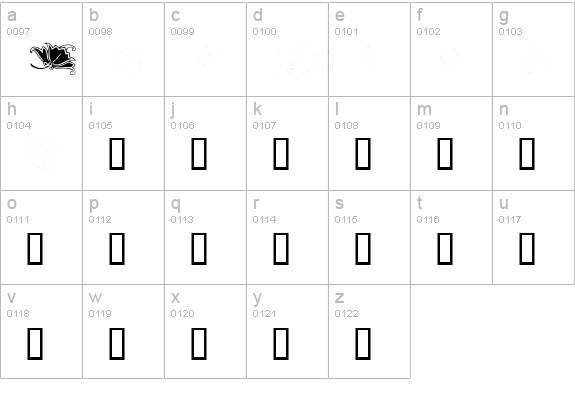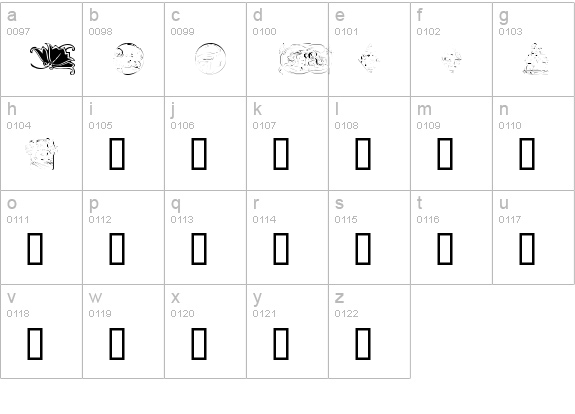
Art Nouveau Bild font is a stunning display typeface that captures the essence of the Art Nouveau movement with its intricate and flowing design. The elegant curves and ornate details of this font make it a perfect choice for projects that require a touch of sophistication and beauty. What sets Art Nouveau Bild font apart is not only its exquisite design but also the fact that it is available for free download at FontsMarket.com. This means that you can add a touch of Art Nouveau style to your projects without any cost involved. Whether you are working on a branding project, a poster design, or any other creative endeavor, Art Nouveau Bild font is sure to make a lasting impression. Download it today and elevate your designs with this timeless and captivating typeface.